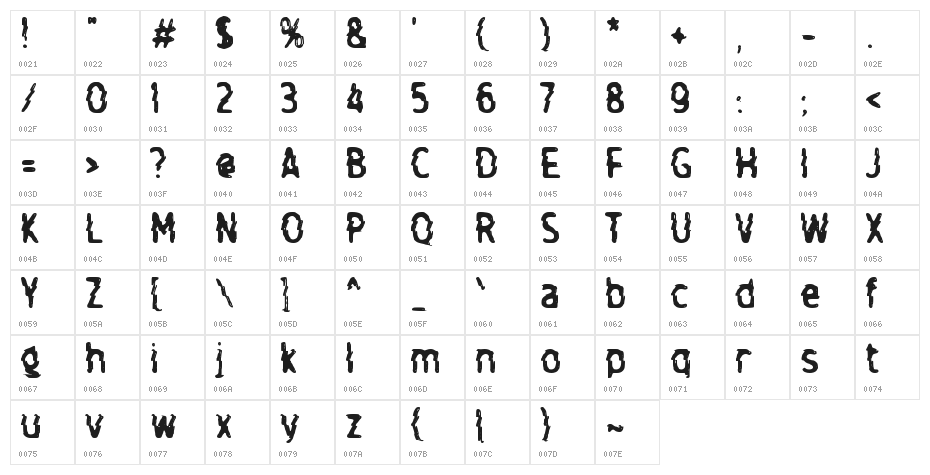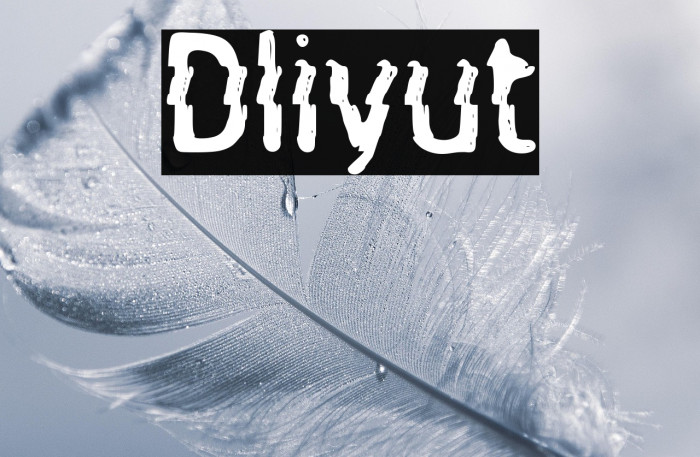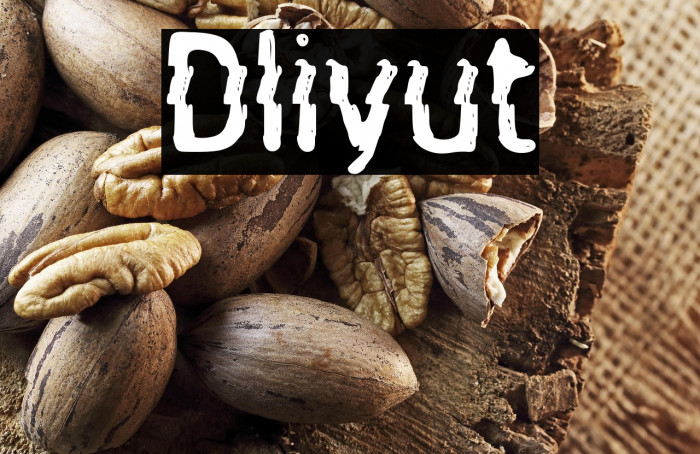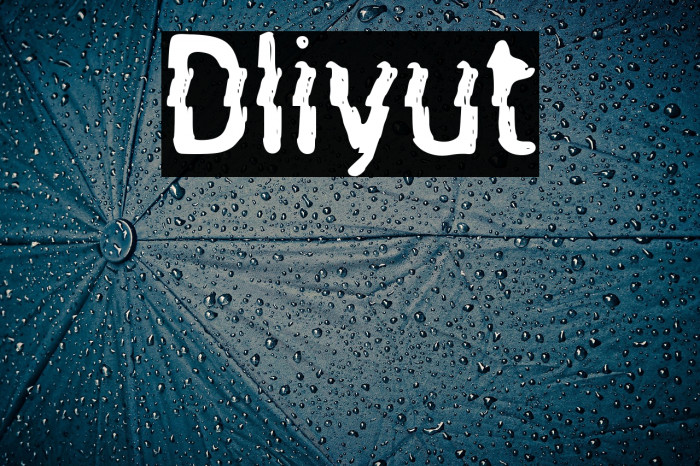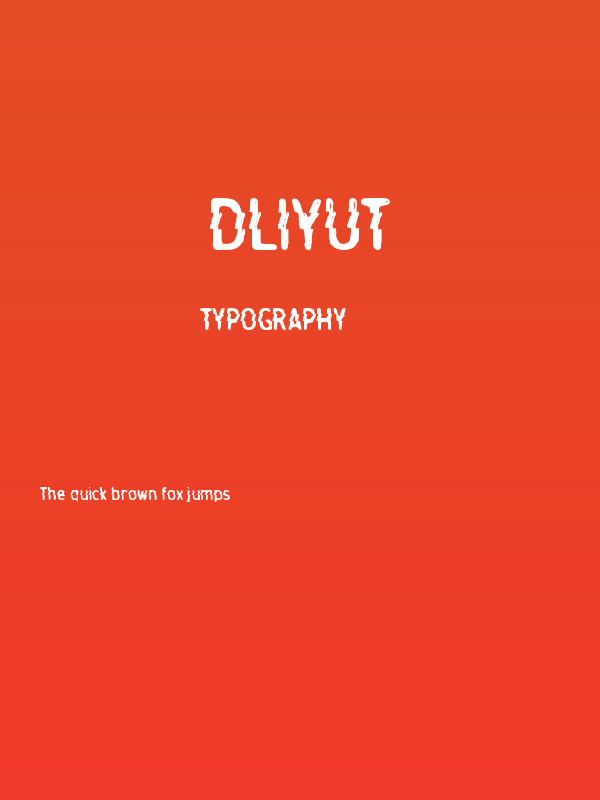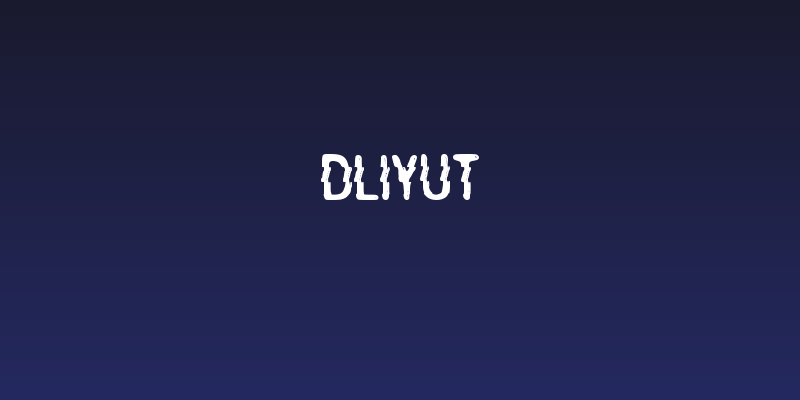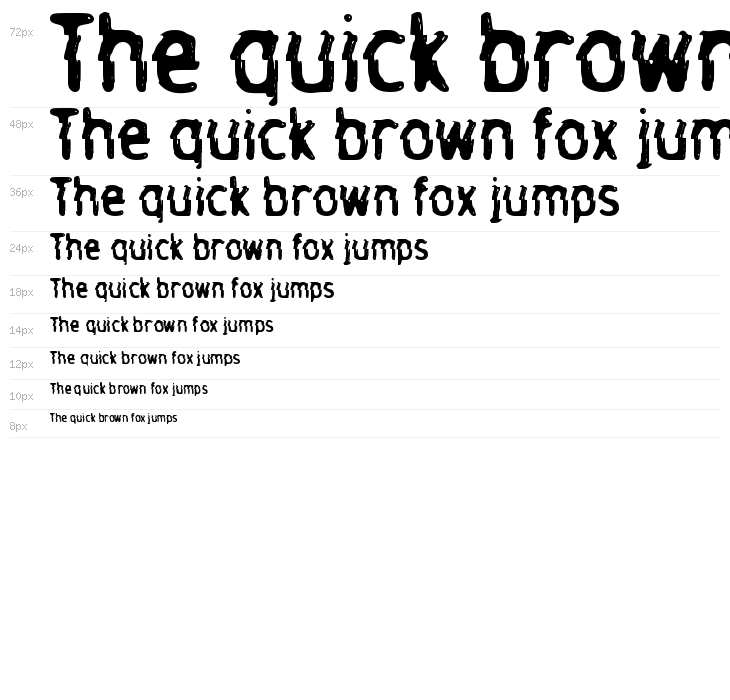
Dliyut Font
Dliyut Description
This font features a bold and expressive style with a hand-painted appearance. The characters are irregular and dynamic, giving a sense of movement and energy. The strokes are thick and uneven, with a rough texture that adds to its artistic and creative feel. This font is ideal for projects that require a bold statement or a unique, handcrafted look. The uppercase and lowercase letters maintain a consistent style, while the numbers and special characters complement the overall design. Its distinctive appearance makes it suitable for eye-catching headlines, posters, and artistic branding.
Proposed ProjectsIdeal for artistic branding, posters, eye-catching headlines, and creative design projects.